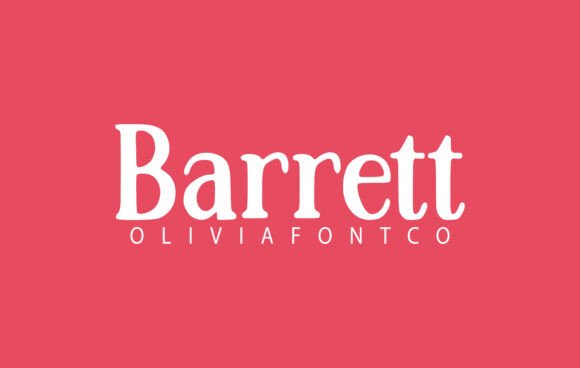
Discover the Charm of Barrett Font: Elevate Your Designs with a Romantic Touch
In the world of typography, fonts play a crucial role in conveying the tone and personality of a design. Among the numerous fonts available, Barrett font stands out as a unique and captivating handwritten font that adds a romantic touch to any project. In this article, we’ll explore the features, benefits, and uses of Barrett font, and how it can elevate your creative ideas to new heights.
What is Barrett Font?
Barrett font is an authentic handwritten font that exudes a sense of elegance and sophistication. Expertly designed to be a true favorite among designers, this font has the potential to take your creative ideas to the highest level. Its romantic touch makes it perfect for designs that require a personal and emotional connection with the audience.
Key Features of Barrett Font
- Legibility: Barrett font is designed to be highly legible, making it suitable for both title and body text.
- Romantic Touch: The font’s handwritten style adds a touch of romance and elegance to any design.
- Versatility: Barrett font can be used for a wide range of designs, including magazine headlines, social media, branding, wedding invitations, cards, and more.
- Authentic Handwritten Style: The font’s authentic handwritten style gives it a unique and personal feel.
Benefits of Using Barrett Font
Using Barrett font in your designs offers several benefits, including:
- Emotional Connection: The font’s romantic touch helps create an emotional connection with the audience.
- Unique Identity: Barrett font’s authentic handwritten style gives your designs a unique identity that sets them apart from others.
- Improved Readability: The font’s high legibility ensures that your message is conveyed clearly and effectively.
- Time-Saving: With Barrett font, you can create stunning designs quickly and efficiently, saving you time and effort.
Uses of Barrett Font
Barrett font is an incredibly versatile font that can be used for a wide range of designs, including:
- Magazine Headlines: Use Barrett font to create eye-catching headlines that grab the reader’s attention.
- Social Media: The font’s romantic touch makes it perfect for social media posts that require a personal touch.
- Branding: Barrett font can be used to create a unique brand identity that sets your business apart from others.
- Wedding Invitations: The font’s elegant style makes it perfect for wedding invitations, save-the-date cards, and other wedding-related designs.
- Cards: Use Barrett font to create beautiful and heartfelt cards for special occasions.
Tips for Using Barrett Font Effectively
To get the most out of Barrett font, follow these tips:
- Use it Sparingly: Use Barrett font sparingly to avoid overwhelming the reader.
- Pair it with Other Fonts: Experiment with pairing Barrett font with other fonts to create a unique and visually appealing design.
- Adjust Font Size: Adjust the font size to ensure that it’s legible and visually appealing.
- Experiment with Colors: Experiment with different colors to find the perfect combination that complements the font.
In conclusion, Barrett font is a unique and captivating handwritten font that adds a romantic touch to any design. Its legibility, versatility, and authentic handwritten style make it perfect for a wide range of designs. By using Barrett font, you can create stunning designs that convey your message effectively and leave a lasting impression on your audience.
FAQs About Barrett Font
- What is Barrett font? Barrett font is an authentic handwritten font with a romantic touch.
- Is Barrett font legible? Yes, Barrett font is highly legible and suitable for both title and body text.
- Can I pair Barrett font with other fonts? Yes, Barrett font can be paired with other fonts to create a unique and visually appealing design.